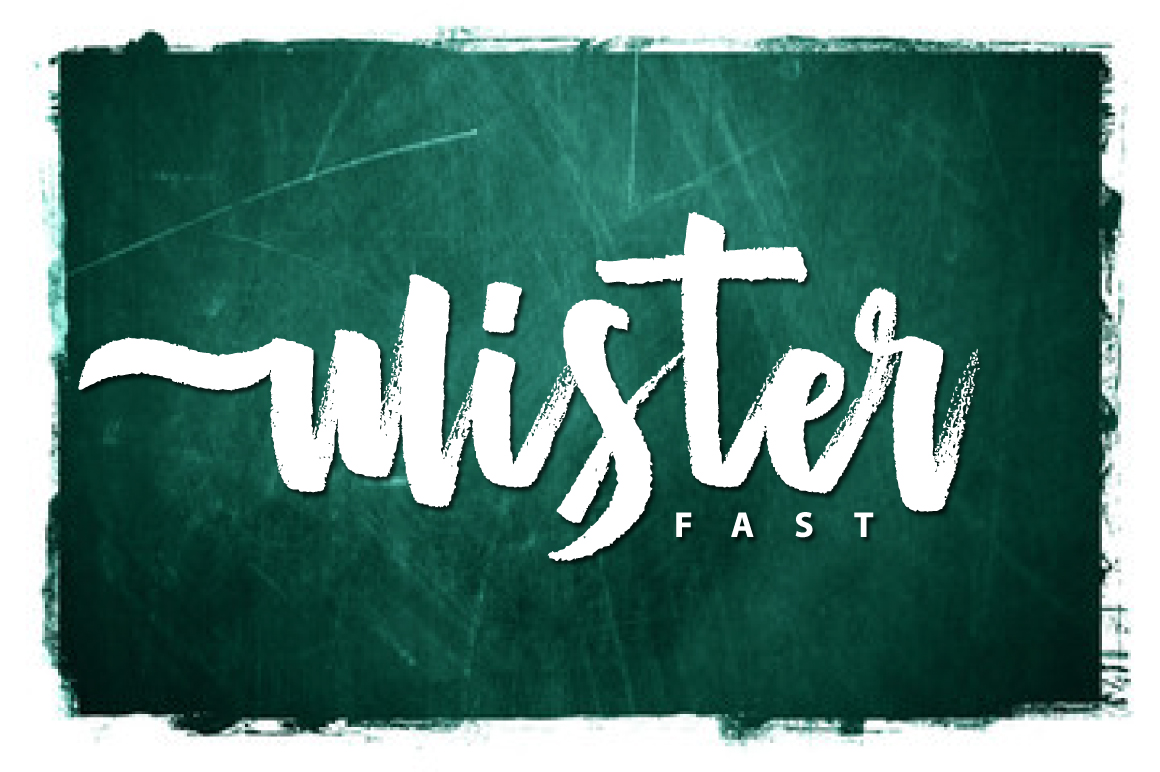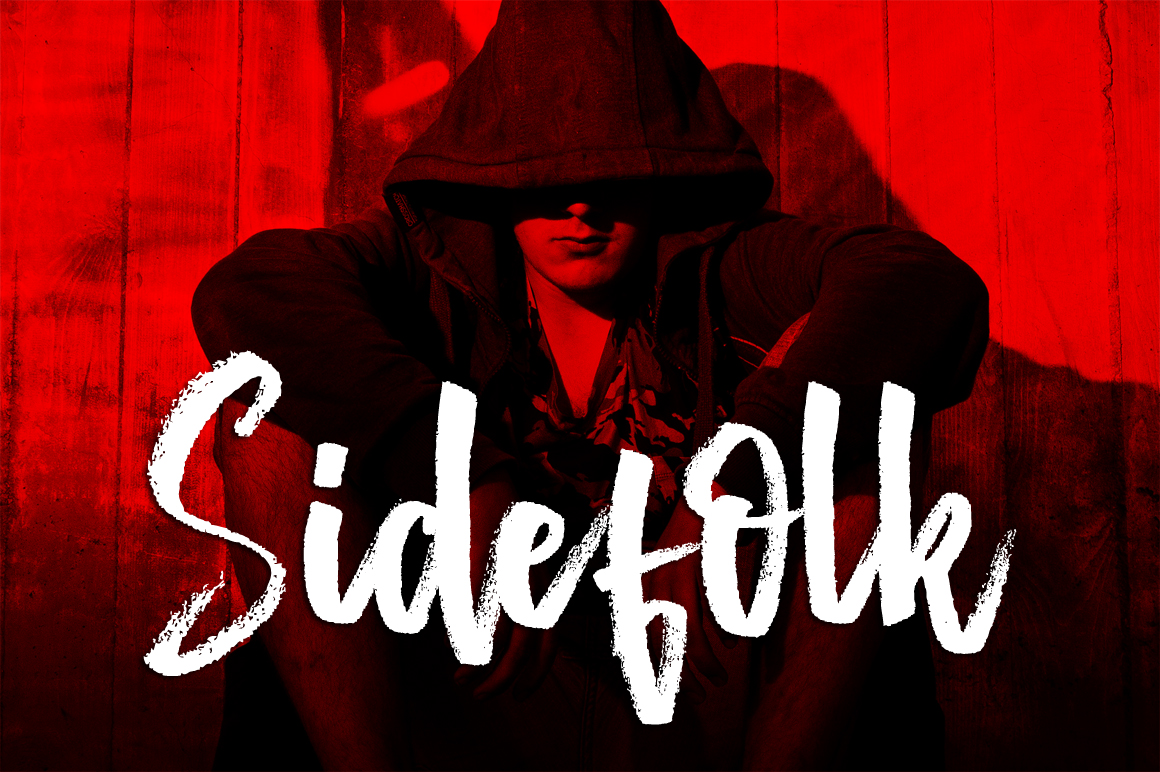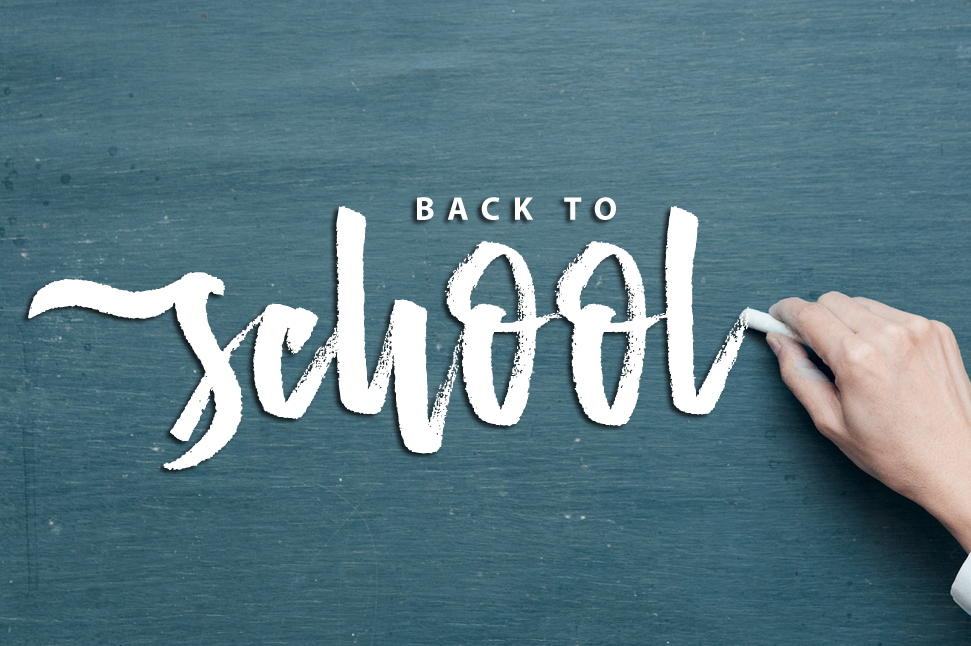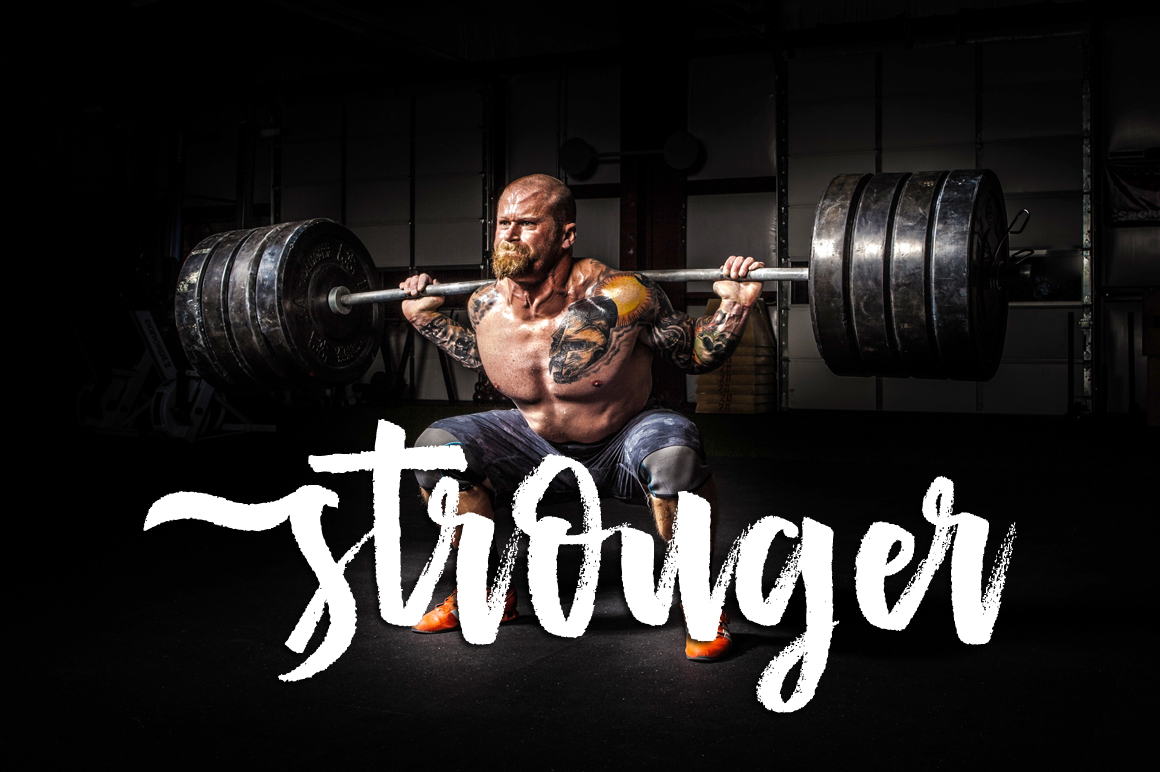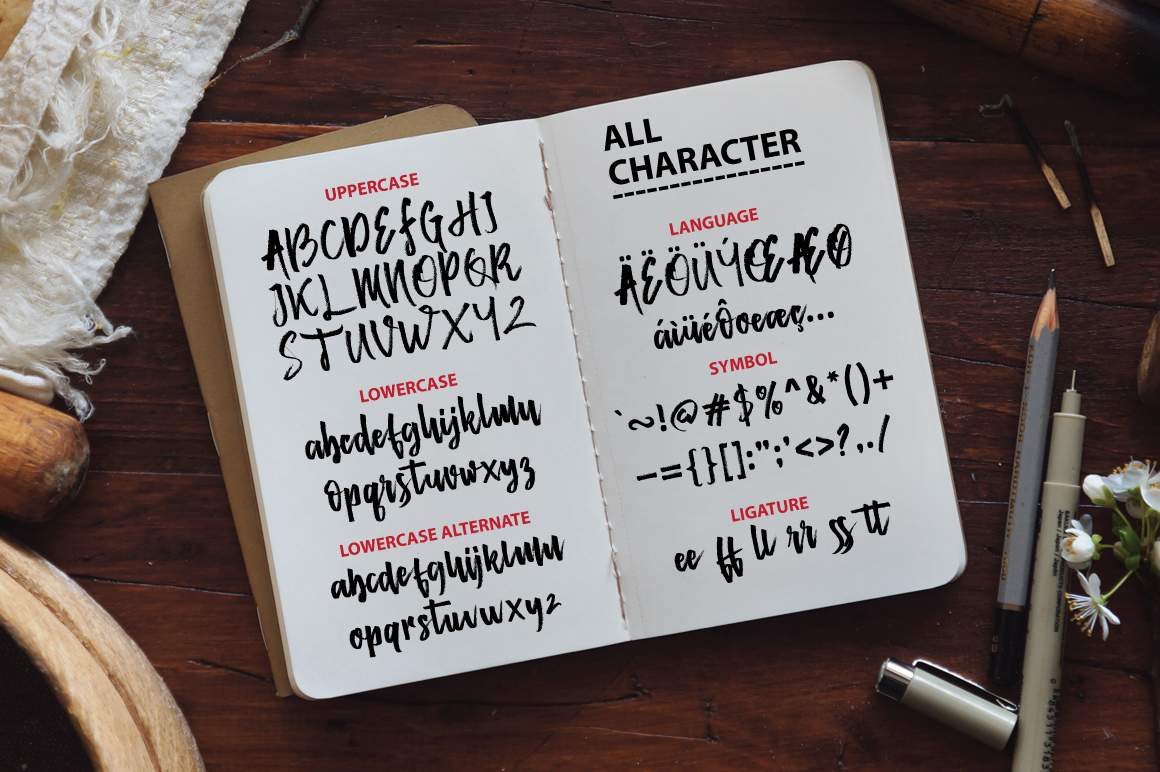
Mister Fast Font
About Mister Fast Font
Mister Fast is textured brush font, perfect for accomplish a contemporary approach to design. Mister Fast is a handmade natural script, with an irregular baseline.